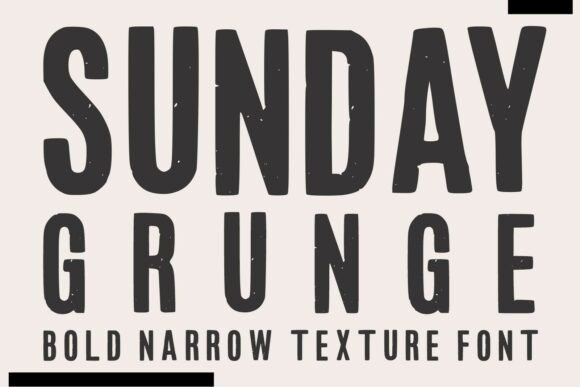
Sunday Grunge: A Bold Display Font for Memorable Branding
I was standing in my kitchen last month, staring at a stack of new candle jars I had poured the night before. The wax looked great. The scent throw was perfect. But the label I had slapped together in a rush looked forgettable, like something from a decade-old template no one bothered to update. That was the moment I realized my packaging needed a personality, something that could carry the mood I wanted my brand to feel. A few late-night searches later, I stumbled onto Sunday Grunge, and it changed the way I thought about every visual piece of my small business.
Sunday Grunge is a narrow textured display font built with a vintage distressed style that feels raw and intentional at the same time. It is not polished in the traditional sense, and that is exactly what makes it work. The rough edges imitate the faded ink of old gig posters, the worn lettering on a handmade stamp, or the gritty charm of a shop sign that has weathered years of sun and rain. When I first tested it on a mockup label, it instantly gave my candle line a grounded, artisanal quality that my previous clean sans serif font never could.
Why Texture Matters When Every Detail Counts
Running a small product-based business is a thousand tiny decisions stacked together, and the fonts you use sit right at the center of that. Whether someone is scrolling Instagram, opening a delivery box, or picking up a business card at a market, the typography tells a silent story before they read a single word. Sunday Grunge speaks in a voice that is confident, a little rebellious, and completely unpretentious. That narrow letter width means you can fit longer product names or short phrases into tight spaces without sacrificing readability, which I quickly discovered is a huge advantage on small candle labels and narrow hang tags.
I started noticing the difference right away in places I had not expected. My thank-you cards, which used to look like an afterthought, suddenly felt like part of a cohesive brand experience. The same font that made my jar labels feel intentional also worked beautifully on the small kraft paper note I tuck into every order. Consistency across touchpoints is something I used to underestimate, but when customers started mentioning how much they loved the packaging, I knew the font choice was doing real work.
Where Sunday Grunge Fits Into Everyday Business Materials
One of the most practical discoveries for me was how versatile Sunday Grunge is across different materials. It is a display font through and through, meaning it shines brightest at larger sizes where the distressed texture gets room to breathe. Think headlines on a café menu, the main title on a bakery box, or the hero text on a website banner. The rough grunge effect feels tactile, almost like letterpress, even when viewed on a screen.
For product labels, I found it works best for the product name or a short descriptive phrase, paired with simpler supporting text underneath. On a skincare label, for instance, you might use Sunday Grunge for the name of the serum and then let a clean sans serif handle the ingredients list. The contrast between the rugged display font and the crisp body text creates a visual hierarchy that guides the eye naturally.
Small businesses wear many hats, and the same font I now use on labels has become my go-to for:
- Logo design for makers and artisan brands wanting a handcrafted feel
- Product packaging across candles, soaps, baked goods, and specialty foods
- Business cards that need to stand out after a networking event
- Thank-you cards and enclosure cards that reinforce brand personality
- Social media graphics where the textured look pops on Instagram stories and Pinterest pins
- Stickers and merchandise where bold lettering grabs attention on a laptop or water bottle
- Menu design for cafés, food trucks, and pop-up restaurants
- Flyers and event posters that benefit from the vintage gig poster aesthetic
- Website banners and online shop graphics that need to feel approachable rather than corporate
Building Trust Through Visual Consistency
There is a subtle psychology behind why a cohesive font matters. When someone visits your online shop and then receives a package, the visual link between the two experiences builds trust. If the website uses one style and the packaging uses something completely unrelated, there is an unconscious disconnect. Sunday Grunge helped me bridge that gap. I now use it across my product photography overlays, my email header graphics, and my printed materials, so the brand feels like one continuous conversation rather than scattered messages.
First impressions in small business often happen on a phone screen. Someone discovers your product through a social media thumbnail or a digital ad, and the typography has maybe two seconds to convey what your brand is about. A generic font communicates generic effort. A font like Sunday Grunge, with its narrow proportions and distressed personality, immediately suggests something handcrafted, independent, and thoughtfully made. It signals that the maker cares enough to choose character over conformity.
Readability and Practical Considerations for Real Use
What started as a frustrated evening staring at inadequate candle labels turned into a deeper understanding of how much typography shapes brand perception. Sunday Grunge did not just fix a design problem. It gave my products a voice that matches what I feel about the work I do, rough around the edges in the best way, honest, and made with intention. For any small business owner looking to bring that same energy into their visual identity, the right display font can be a quietly powerful tool in a design arsenal that does not need to be complicated to be effective.